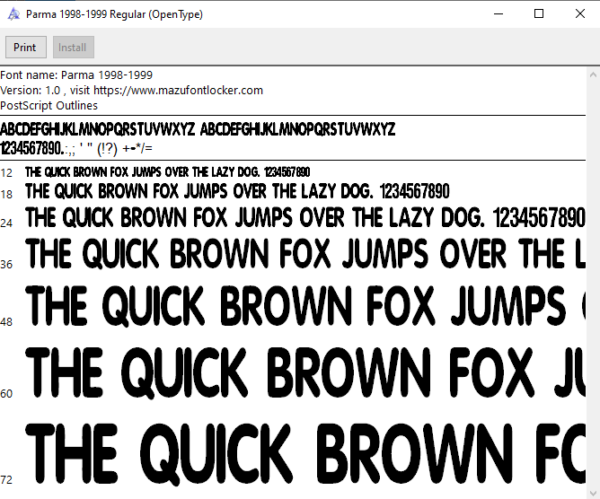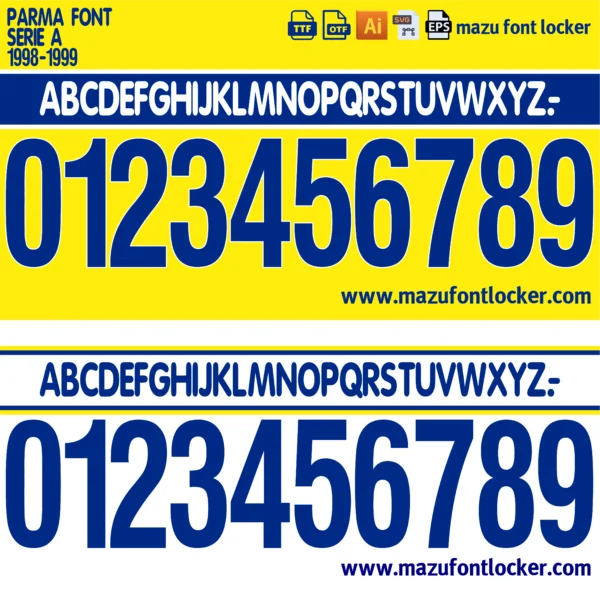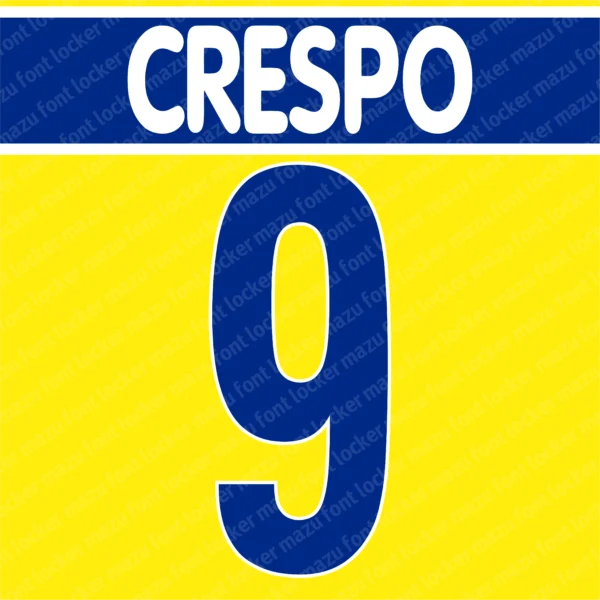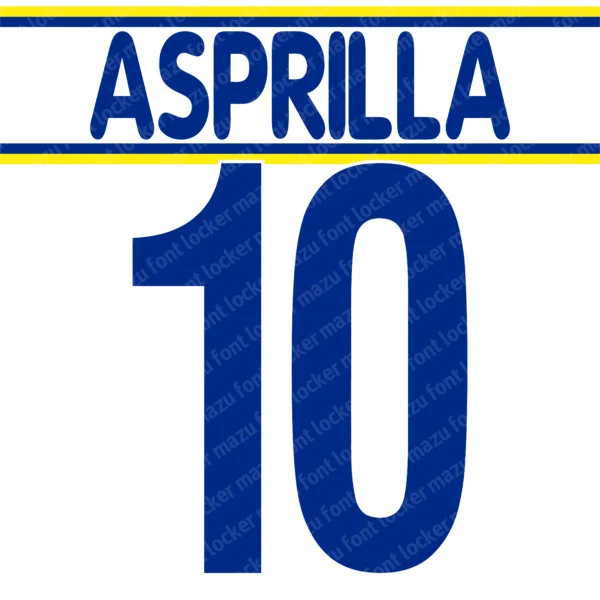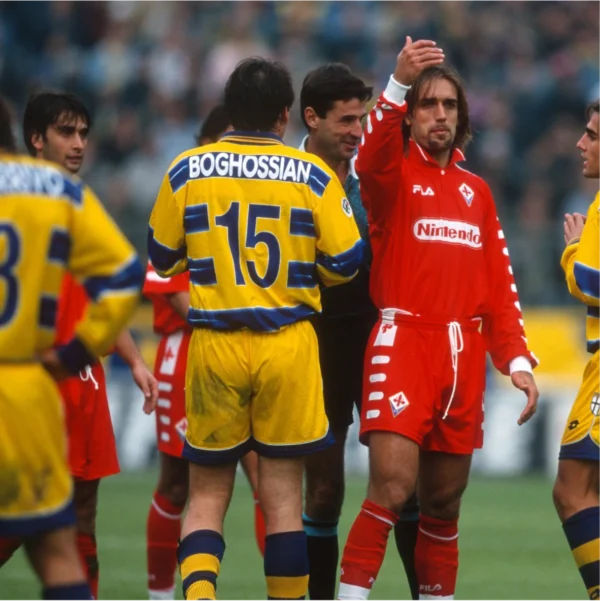
Parma 1998-1999 Font Vector – Magnificent Crociati Legend
Channeling the proud Crociati spirit of the Parmalat era, it features the iconic style worn by legends like Buffon, Cannavaro, Thuram, and Crespo. Perfect for retro jersey mockups, football designs, and nostalgic Parma art.
Parma 1998-1999 Font – Authentic Gialloblu Typeface
The Parma 1998-1999 Font is a premium typeface that accurately recreates the official match lettering worn by Parma during the legendary 1998-1999 Serie A season. This high-quality font kit captures the bold, elegant, and distinctive typography that represents the club’s golden era.
Designed for professional designers and passionate Parma fans, the Parma 1998-1999 Font delivers perfect authenticity for creating realistic jersey mockups, fan merchandise, matchday posters, social media graphics, and much more. It blends beautifully with the club’s iconic yellow and blue kits from that historic season.
This font stands out because of its sharp details and strong identity. Every letter and number is crafted to match the exact style used on the players’ shirts during the 1998-1999 season. Whether you are making realistic kit templates or nostalgic football content, the Parma 1998-1999 Font gives your designs that authentic Gialloblu look.
The letterforms in the Parma 1998-1999 Font are tall, bold, and highly readable. The strokes have a strong yet refined weight that looks powerful on the back of jerseys while maintaining excellent clarity and classic Italian elegance.
The numerals use bold curves and firm edges, giving them a confident and premium appearance. This design ensures great legibility whether used in large print formats, digital mockups, or video content.
• Full uppercase A–Z and numbers 0–9 in authentic Parma 1998-1999 style
• Special Parma crest glyph for accurate shirt number detailing
• Create highly realistic Parma 1998-1999 home and away jersey mockups with accurate lettering
• Design stunning season posters, score graphics, and squad announcements
• Produce custom Gialloblu merchandise with a classic 90s football aesthetic
Parma in the 1998-1999 Season
The Parma 1998-1999 Font is an independently designed typeface package. It is carefully crafted to replicate the official shirt lettering style of the 1998-1999 season. This font kit is perfect for creative projects, fan edits, nostalgic jersey designs, and custom football graphics.